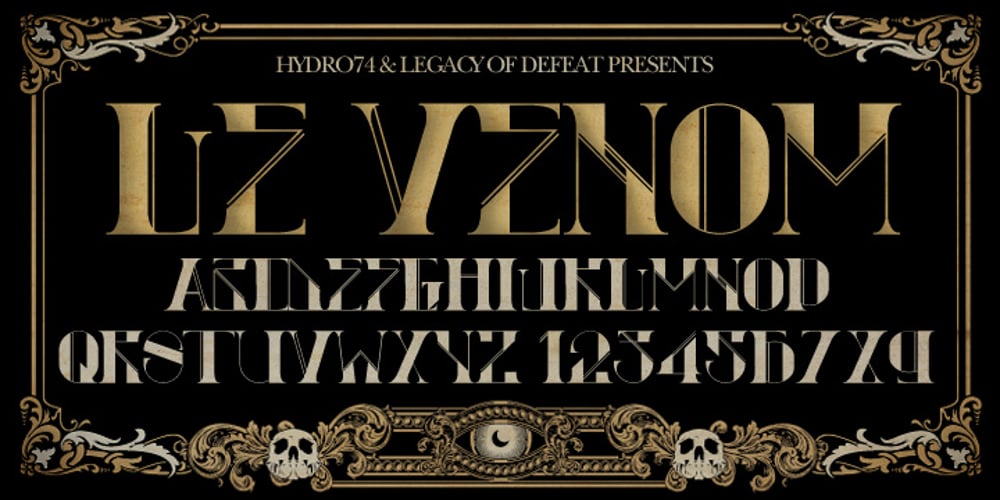
H74 Le Venom Font Family was designed by Joshua M. Smith and published by Hydro74. H74 Le Venom contains 1 styles and family package options. Hell Fire is a hybrid of traditional early sign painters block and a hint of urban modern day culture.